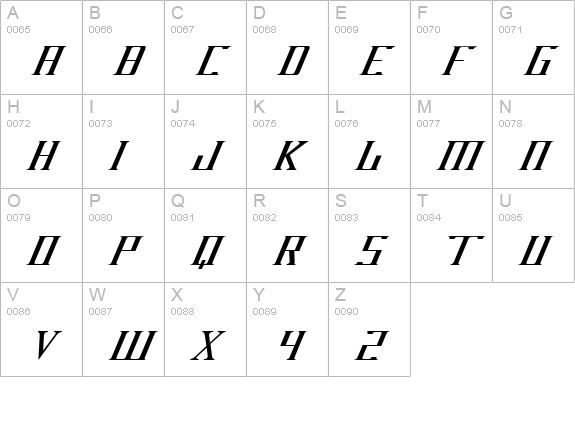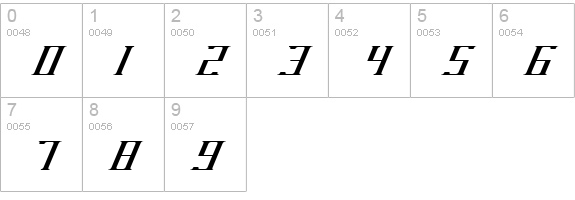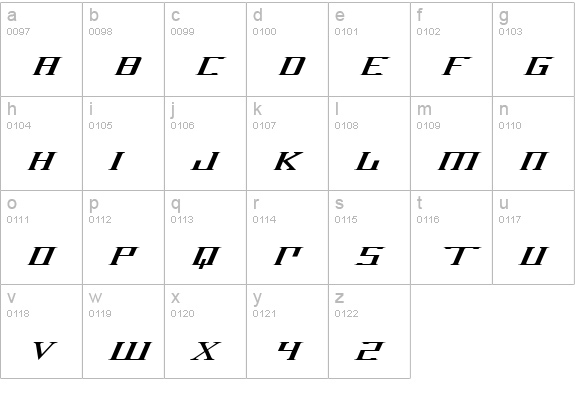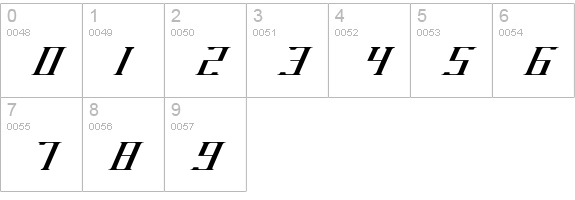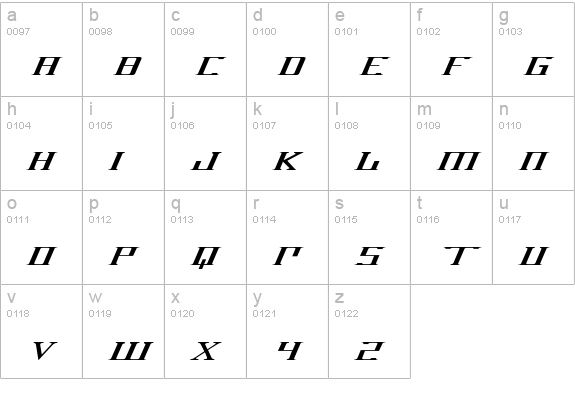
DarkWind Italic Font Details
DarkWind Italic is a distinctive, italic variant in the DarkWind typeface family \xE2\x80\x94 well suited to design and typography projects.
DarkWind Italic is a sleek and modern font that exudes sophistication and elegance. With its subtly slanted appearance and sharp lines, this typeface is perfect for adding a touch of boldness to any design project. Whether you're creating a logo, designing a website, or crafting a poster, DarkWind Italic will make your text stand out with its unique style. The best part? DarkWind Italic is available for free download at FontsMarket.com. Now you can enhance your projects with this stunning font without breaking the bank. Don't miss out on the opportunity to elevate your designs with DarkWind Italic - download it today and unleash your creativity!